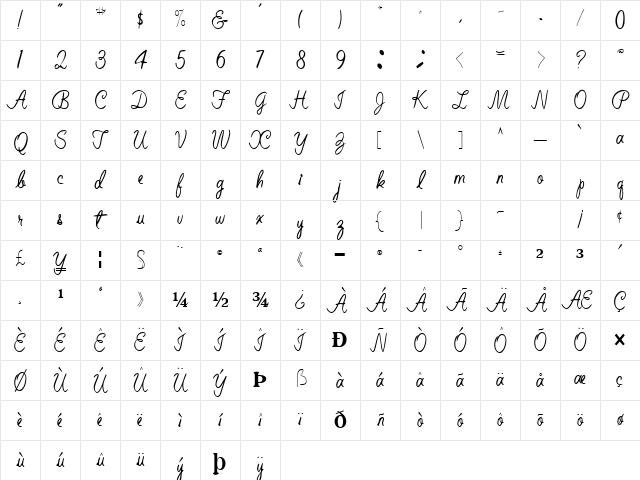
BelindaType67 Regular Free Font
BelindaType67 Regular
BelindaType67 Family
Complete BelindaType67 Regular glyph index. Displaying only characters natively supported by BelindaType67 Regular font.
Design Context for BelindaType67
BelindaType67 is a composed and adaptable typeface that performs quietly and consistently across a wide range of design contexts.